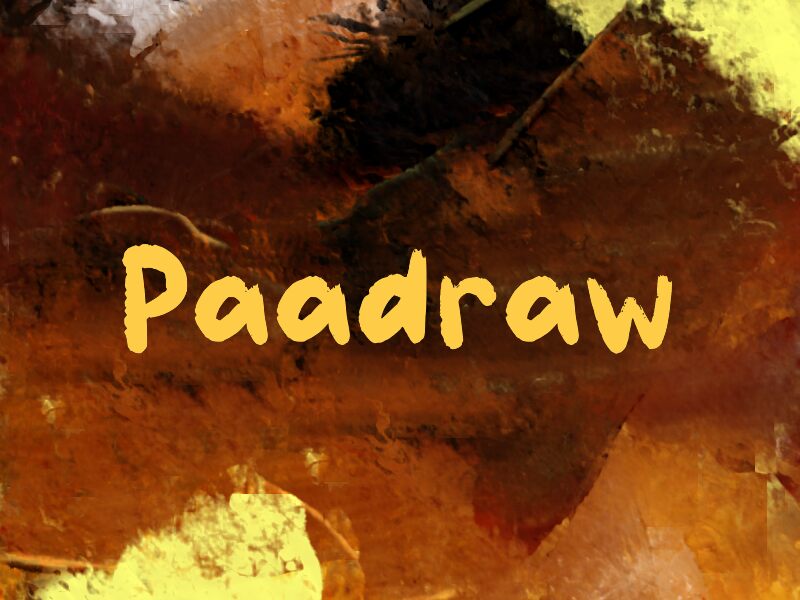
Paadraw is a free brush font by wep. This cheerful font is a great resource to have when composing fun, friendly, and youthful designs or texts. The letter design is informal, relaxed, and good-inviting with a childlike and modern look to it.
The available letters are suitable for artistic applications varying from contemporary branding to casual events promotions and more. Other suitable applications are items or packaging for friendly products, IV bags, cosmetics, greeting cards, prints or digital advertising.
Paadraw is a unique and stylish free font that brings a touch of creativity to your designs. Perfect for various projects, this font can enhance your branding, social media posts, or any digital artwork. With its contemporary aesthetic, Paadraw is versatile enough to suit both professional and casual uses.